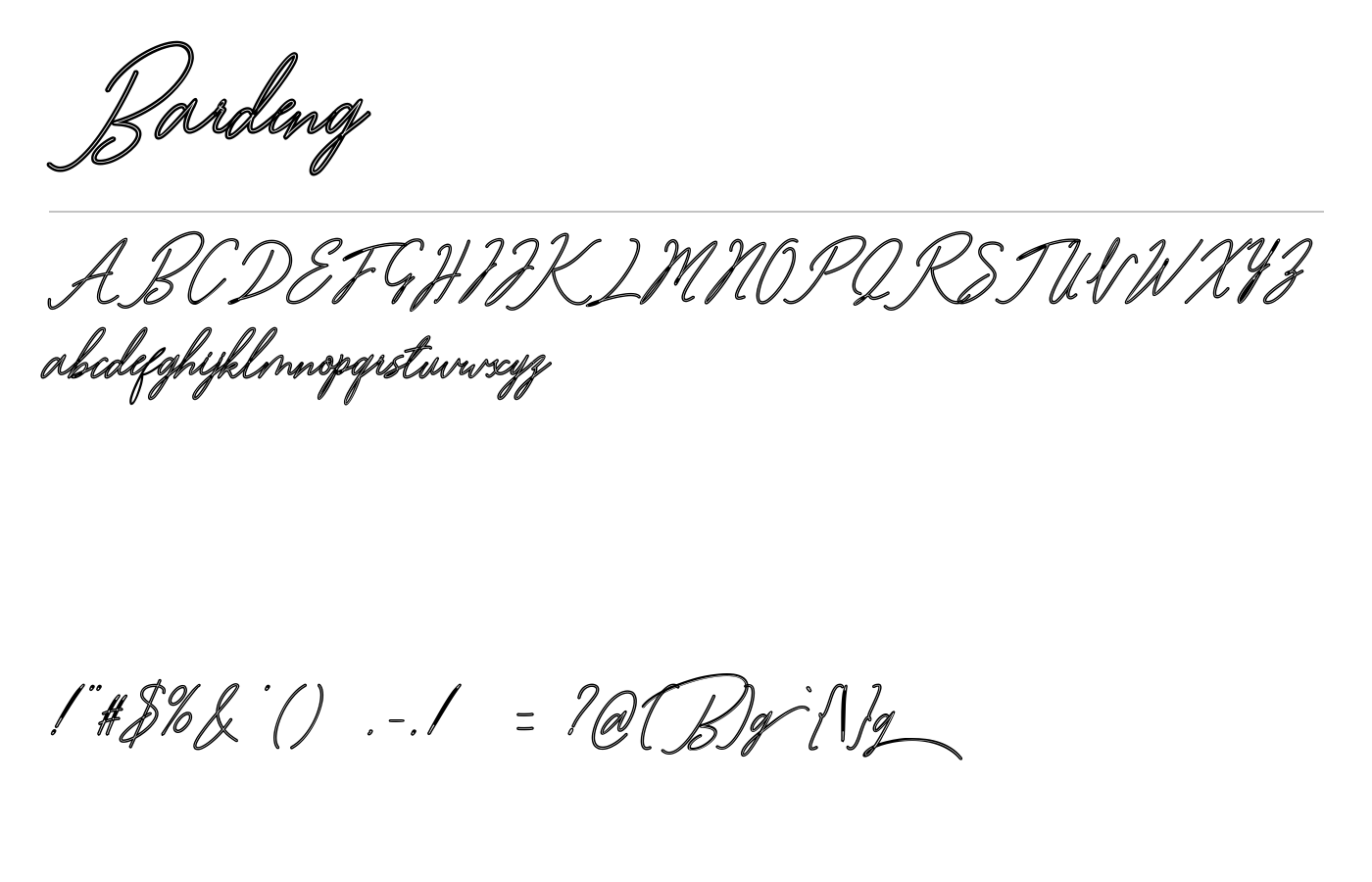
Bardeng is a delicate, script-style font that exudes elegance and sophistication with its flowing, hand-drawn strokes and graceful letterforms. Its fine, slightly textured lines and natural cursive rhythm make it perfect for luxury branding, invitations, and stylish editorial use where a personal, refined touch is desired. This font works beautifully for projects seeking a warm, artistic feel that communicates charm and exclusivity.
Bardeng Font
About Bardeng Font
| Font family | Bardeng Font |